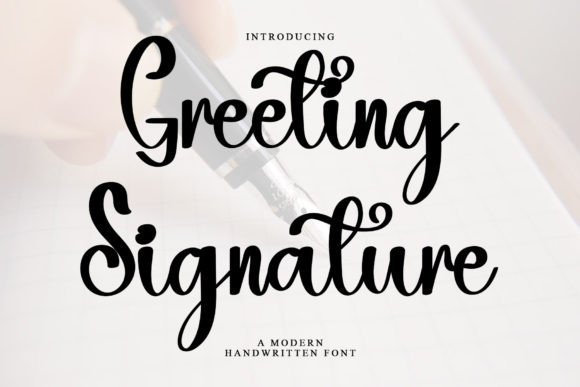
The Perfect Pen Stroke: Introducing Greeting Signature Font
Have you ever been scrolling through your favorite design inspiration board, and suddenly, you stumble upon a font that speaks directly to your creative soul? For many designers, that moment of epiphany is what sets their projects apart from the rest. It’s the perfect fusion of style, personality, and professionalism.
Enter the Greeting Signature Font, a charming handwritten font designed to capture the essence of personal and heartfelt communication. With its natural, unique style, this font is the perfect fit for a wide range of designs, from greeting cards and invitations to social media graphics and branding materials. The Greeting Signature Font is more than just a typography choice – it’s an opportunity to add a touch of warmth and personality to your designs.
Greeting Signature Font Key Features
- Unique Characteristics: The font features a unique blend of elegant and playful elements, making it perfect for creating eye-catching greeting cards, invitations, and other celebratory materials.
- Script and Connection: The font includes a range of connecting scripts, allowing for smooth and fluid connections between letters, ideal for handwritten-style signatures and quotes.
Greeting Signature Font Review
I recently had the chance to work with the Greeting Signature Font, and overall, I have mixed feelings about it. Here are my honest thoughts.
- Unique and elegant design: The font has a distinctive look that’s perfect for adding a personal touch to digital signatures.
- High-quality formatting: The font is well-formatted and looks great on various devices and platforms.
- Easy to customize: The font is highly customizable, allowing users to adjust the size, color, and style to suit their needs.
- Limited character set: The font only includes basic characters and lacks special characters and symbols.
- No OpenType features: The font lacks advanced OpenType features, which can limit its use in complex typography scenarios.
- Not ideal for large text: The font is best suited for small to medium-sized text, and it may not be the best choice for large blocks of text.
While the Greeting Signature Font has some great features, its limitations hold it back from being a top choice for all typography needs. However, for specific use cases like digital signatures, it’s a solid option. If you’re looking for a unique and elegant font for a specific project, the Greeting Signature Font is worth considering. Just be aware of its limitations and choose it wisely.
Tips for Getting the Most Out of Your Greeting Signature Font
Greeting signature fonts are commonly used in:
Business cards and letterheads.
Marketing materials and brochures.
Website headers and footers.